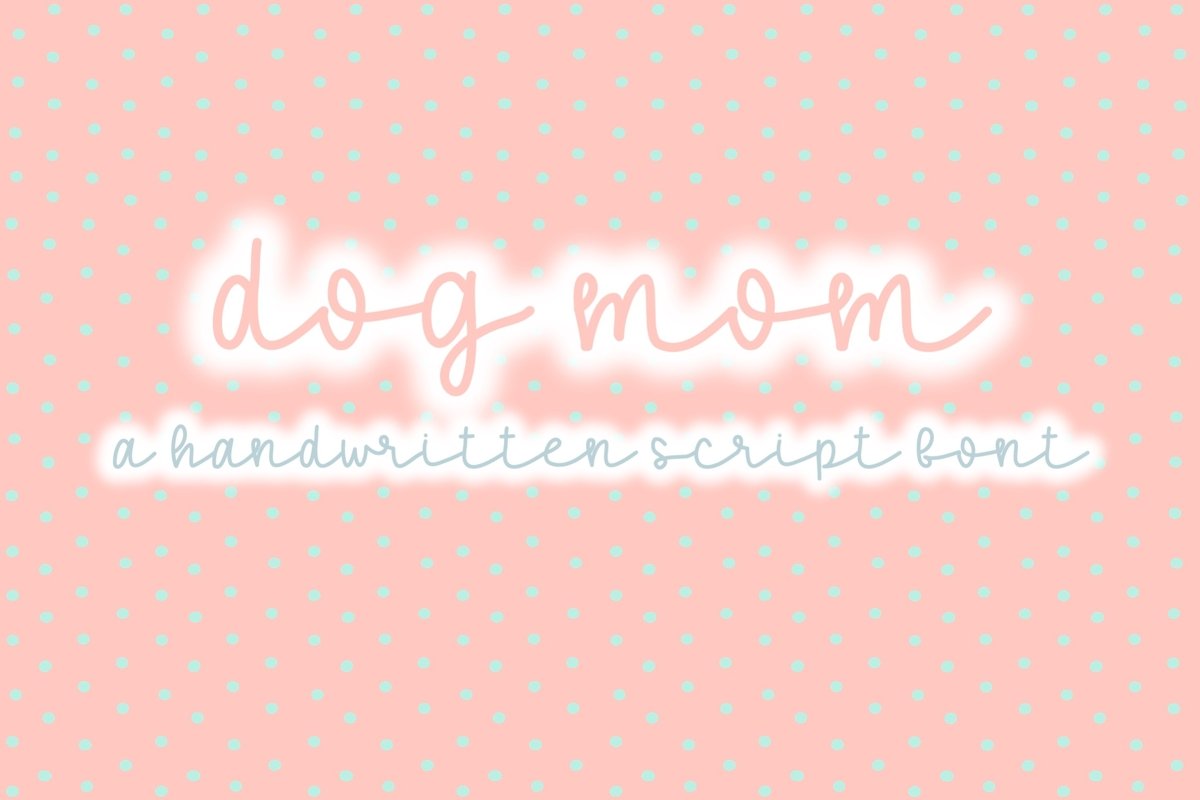
Dog Mom | A Fun Script Font | Hand Lettered
Dog Mom FONT.
This is a pretty, bouncy, handwritten script font.
This font is great for creating your own digital artwork, signs, blogs, social media posts, crafts, Cricut machines and so much more!